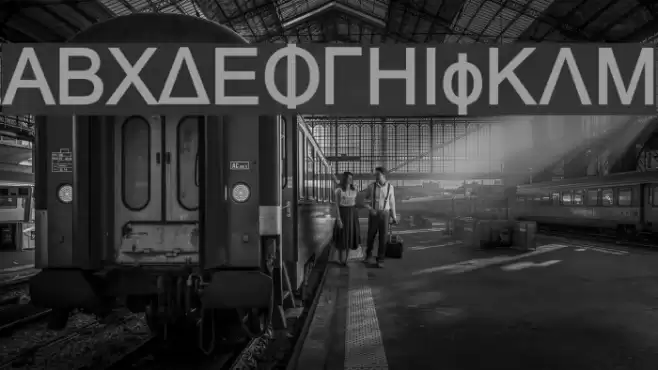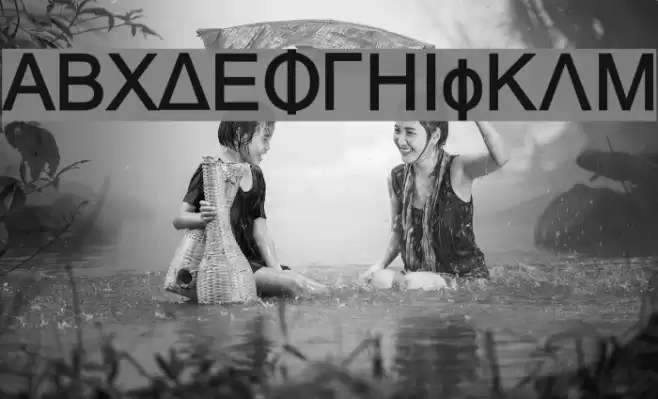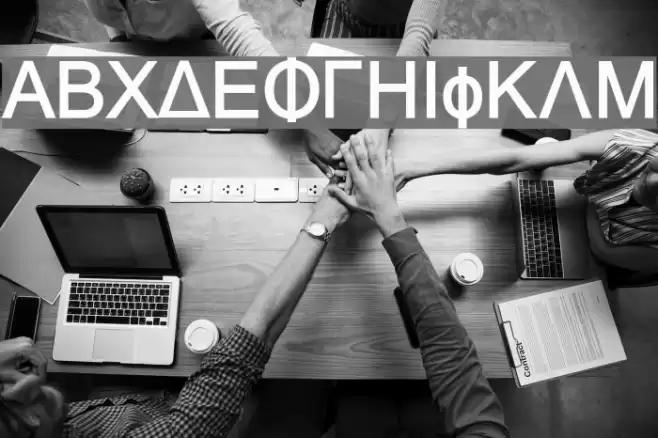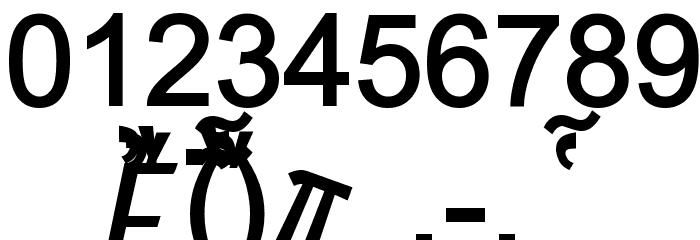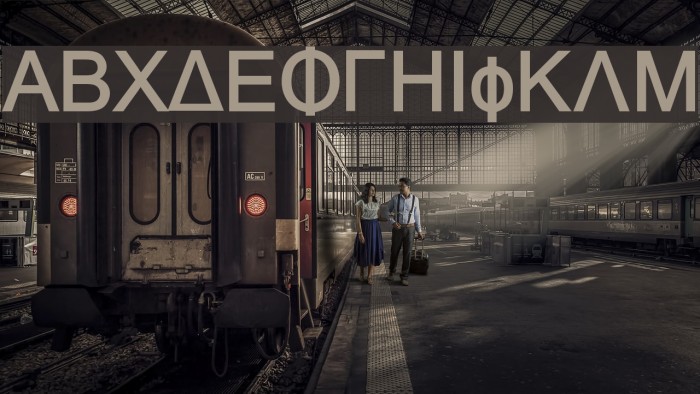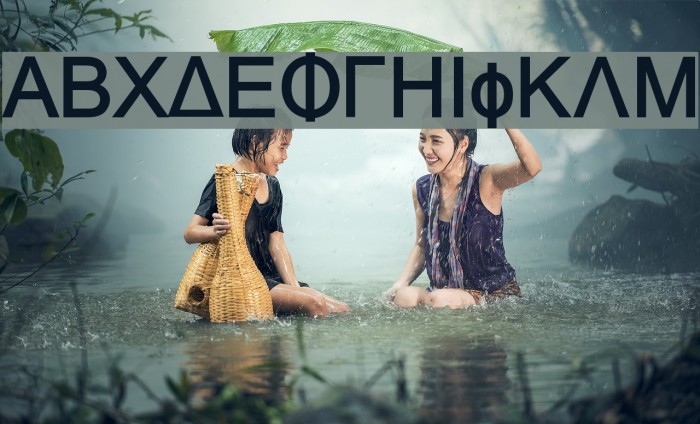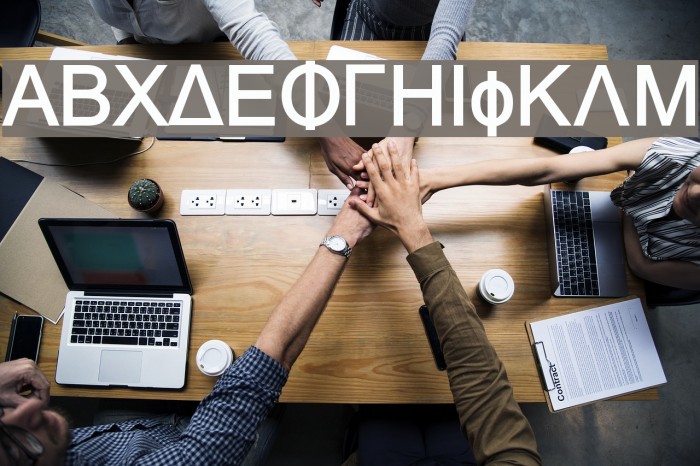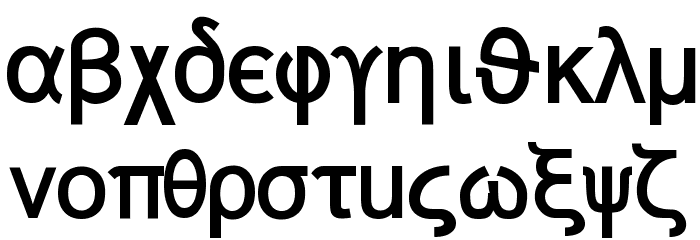
Naxos-Bold Font
Naxos-Bold Description
This font features a bold and modern design with clean, geometric lines and a strong presence. The characters are crafted with uniform stroke widths, giving it a consistent and balanced appearance. The uppercase and lowercase letters maintain a harmonious relationship, while the numerals are clear and easily readable. The special characters are distinct and integrate seamlessly with the overall style. This font's simplicity and clarity make it versatile for various applications.
A bold, modern font with geometric lines and uniform stroke widths from Uncategorized fonts.
- Proposed Projects: Ideal for branding, advertising, headlines, and digital content where a strong, modern presence is desired.
- Use Case: Headlines, Logos, Branding